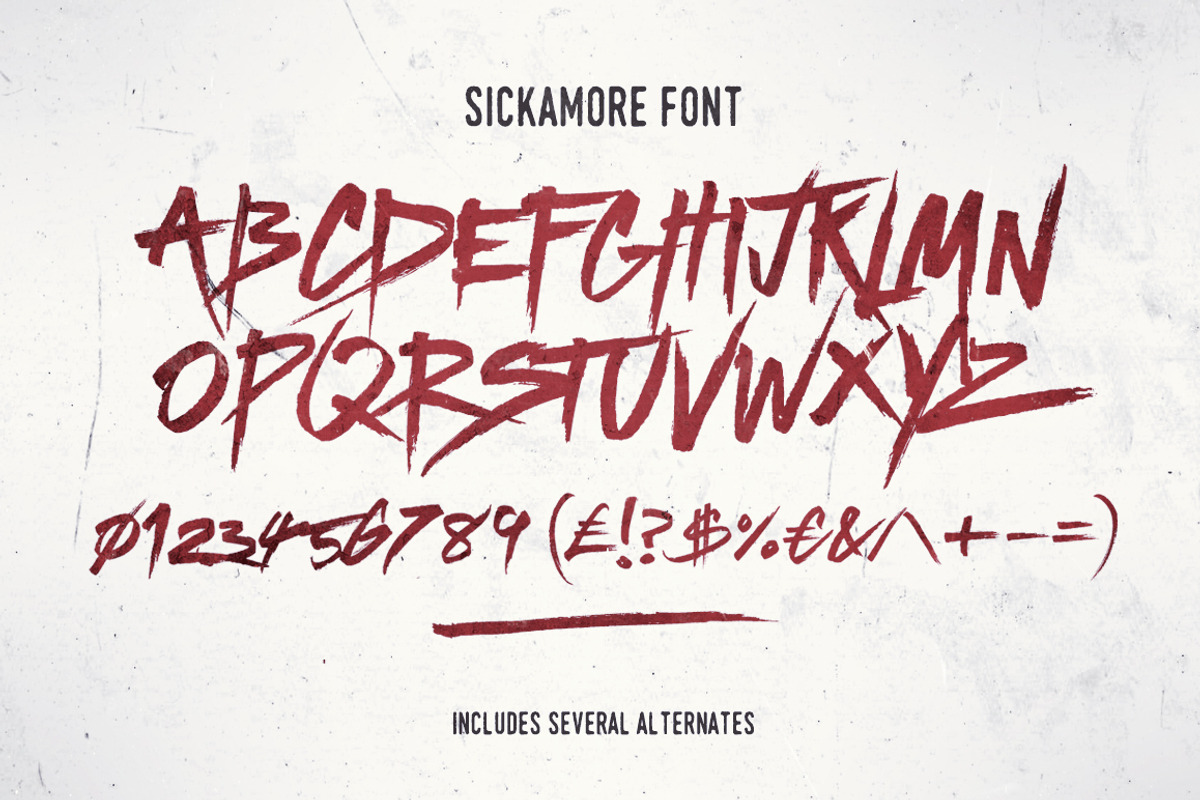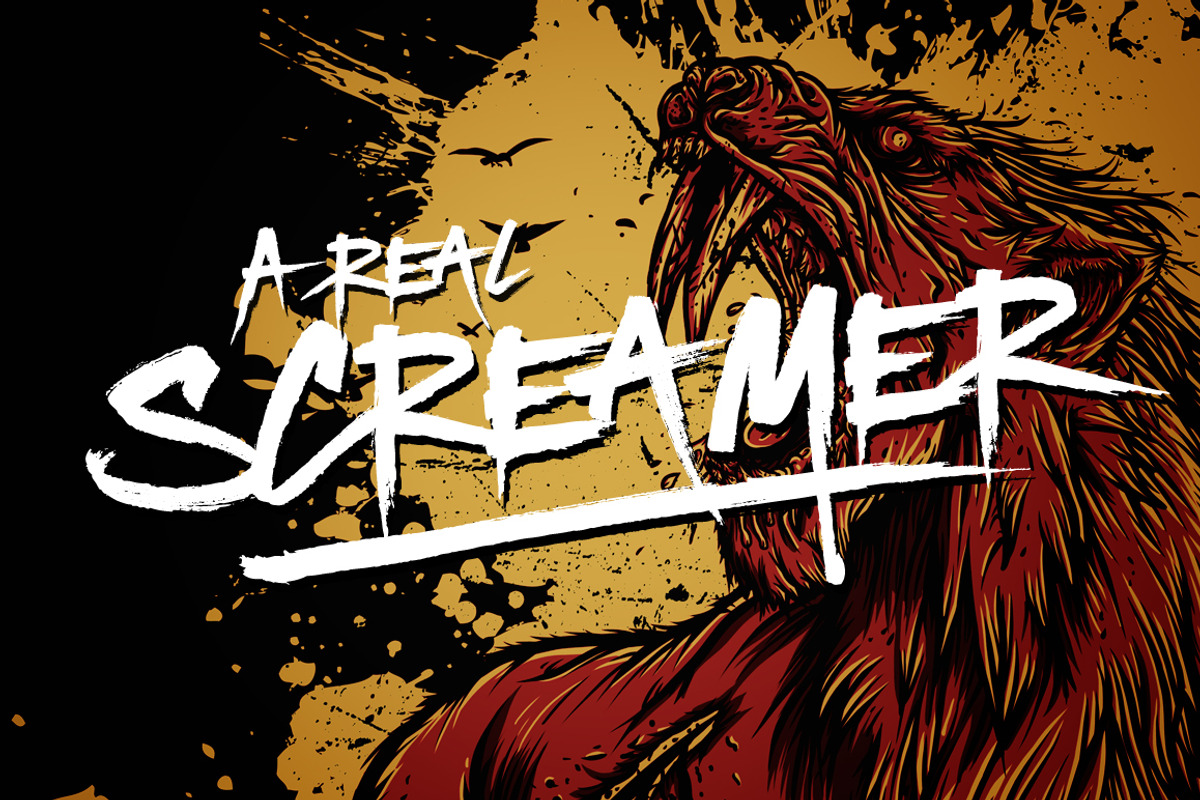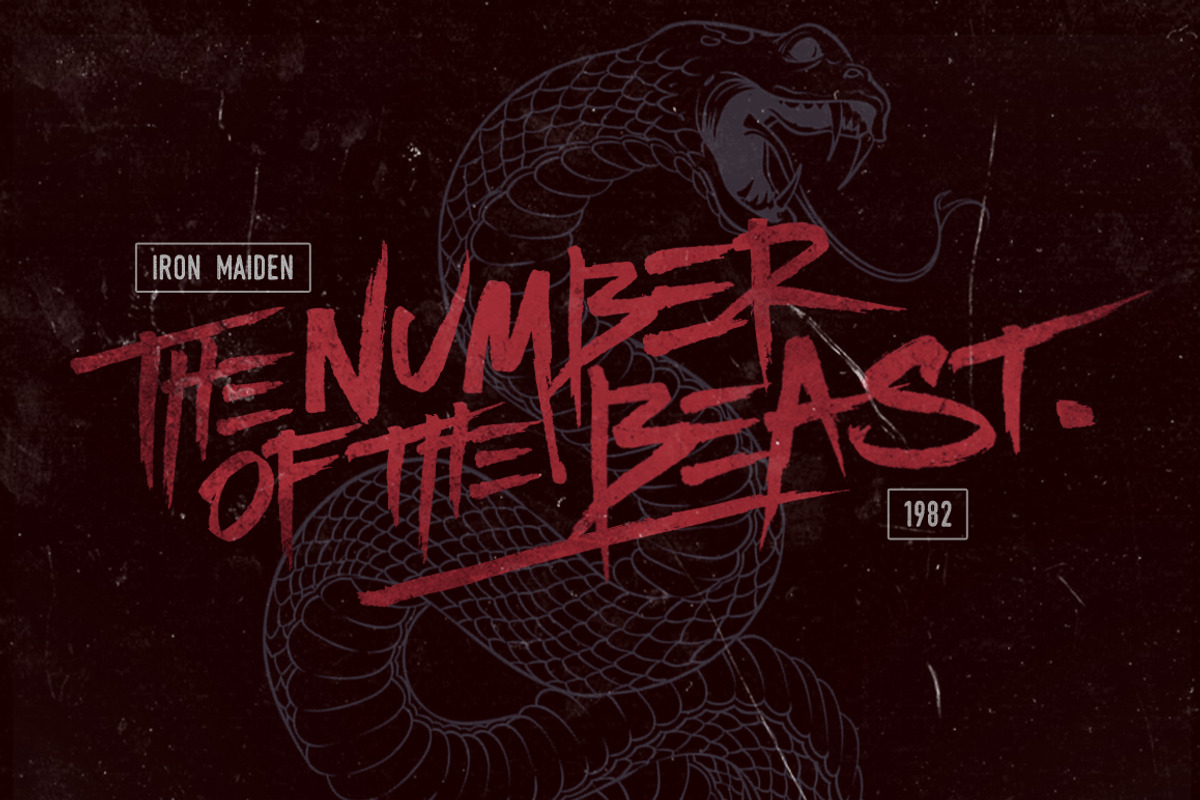
Sickamore Font is a powerful and edgy display font, great for headers, logos and attention-grabbing words or phrases. The font is all CAPS however does include various alternate capitals in the lowercase form. Also included are numerals, punctuation and currency glyphs.